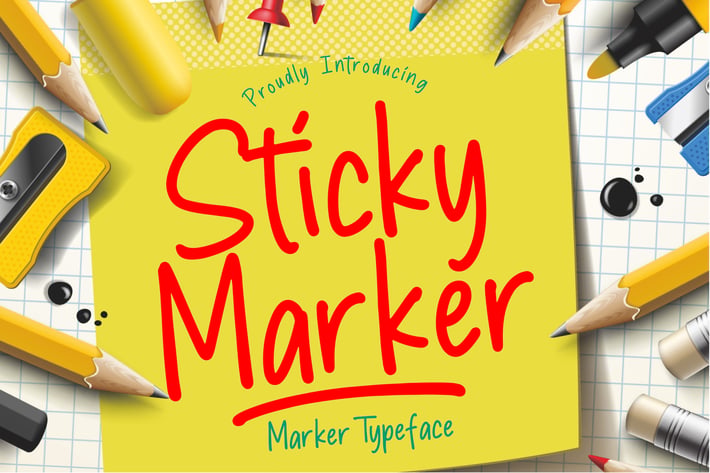
Sticky Marker Typeface
Sticky Marker is fun monoline marker font look a like that perfect for your any projects.
Sticky Marker is perfect for branding projects, logo, wedding designs, social media posts, advertisements, product packaging, product designs, label, photography, watermark, invitation, stationery and any projects that need handwriting taste.
Ton of glyphs
Ligature & Alternate